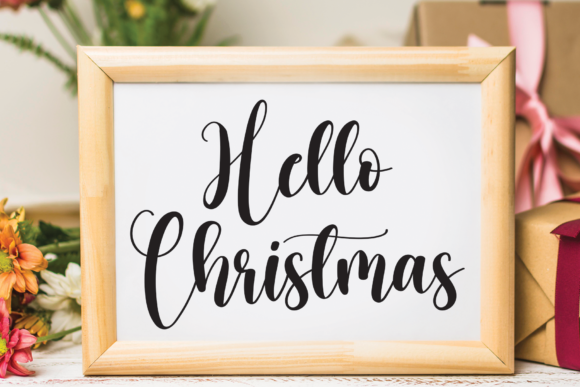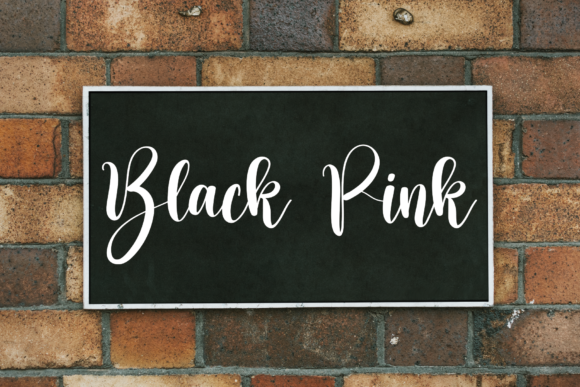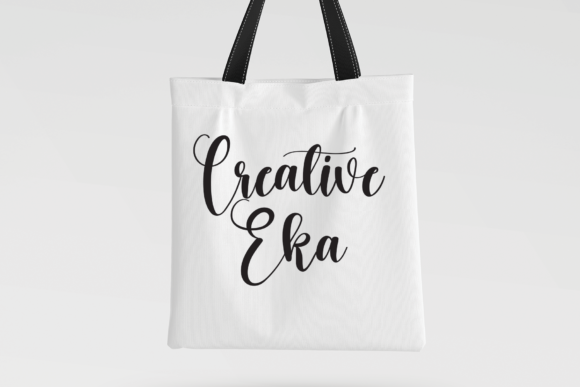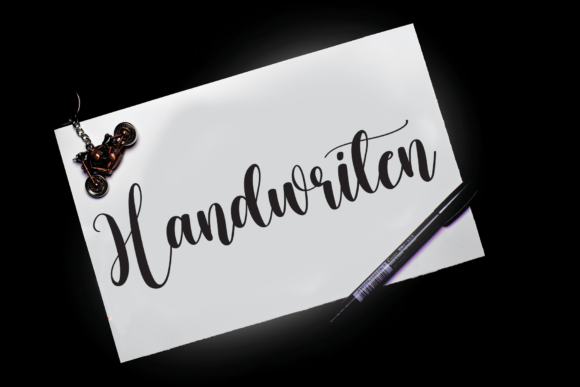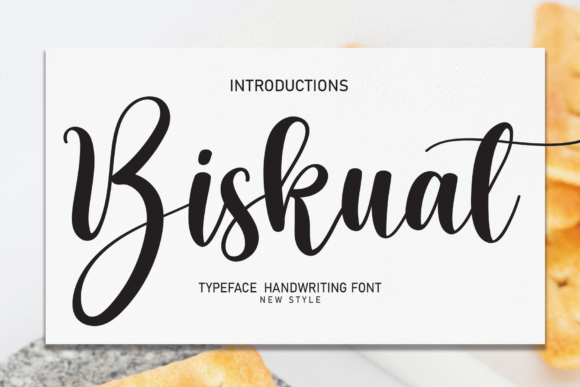
Biskuat Font: Elevate Your Creativity with Elegance
In the world of typography, a good font can make all the difference in transforming a simple design into a masterpiece. For designers, crafters, and creatives looking for that perfect touch of elegance, Biskuat Font is here to revolutionize your projects. This magical script font, carefully crafted with a touch of sophistication, is about to become your go-to choice for turning any creative idea into a true piece of art.
The Charm of Biskuat Font
Biskuat Font stands out with its unique blend of elegance and whimsy. Each letter is designed to add a touch of magic to your designs, making it perfect for a wide range of projects. Whether you’re working on Instagram posts, calligraphy scripts for DIY projects, or any other creative endeavor, Biskuat Font brings a level of sophistication and charm that’s hard to find elsewhere.
Why Choose Biskuat Font?
- Elegance at Its Best: Biskuat Font is meticulously designed to bring an air of elegance to any project. Its flowing script and intricate details make it a standout choice for designers looking to add a touch of class.
- Versatility: From digital applications like Instagram and Facebook posts to print materials such as brochures, posters, and even DIY craft projects, Biskuat Font adapts seamlessly. Its versatility makes it an invaluable asset in any designer’s toolkit.
- Easy to Use: Despite its intricate design, Biskuat Font is surprisingly easy to use, even for those new to calligraphy and script fonts. It’s perfect for both beginners looking to elevate their designs and seasoned designers seeking a reliable, beautiful font.
- Magical Touch: What truly sets Biskuat Font apart is its magical touch. It’s not just a font; it’s a way to infuse your projects with a bit of wonder and enchantment, making them truly memorable.
Applications of Biskuat Font
The possibilities with Biskuat Font are endless. Here are a few ideas to get you started:
- Social Media Graphics: Elevate your Instagram stories and posts with beautifully crafted text that captures your audience’s attention.
- DIY Projects: Add a professional touch to your handmade crafts, such as journals, cards, and decorations, with elegant calligraphy.
- Branding and Marketing: Use Biskuat Font in your branding materials to convey a sense of luxury and sophistication.
- Events and Invitations: Create stunning invitations and event materials that set the tone for an elegant and memorable occasion.
Tips for Using Biskuat Font
To make the most out of Biskuat Font, consider the following tips:
- Experiment with Sizes: Play around with different font sizes to find the perfect balance for your design.
- Combine with Other Fonts: Don’t be afraid to pair Biskuat Font with other fonts for contrast and visual interest.
- Adjust the Spacing: Tweaking the spacing between letters can enhance the flow and readability of your text.
Biskuat Font is more than just a script font; it’s a tool for creativity, a dash of elegance, and a pinch of magic for your designs. Whether you’re a professional designer or a crafting enthusiast, Biskuat Font has the potential to transform your projects into works of art. With its versatility, ease of use, and undeniable charm, it’s an excellent addition to any creative arsenal. So, why settle for ordinary when you can create something extraordinary with Biskuat Font?